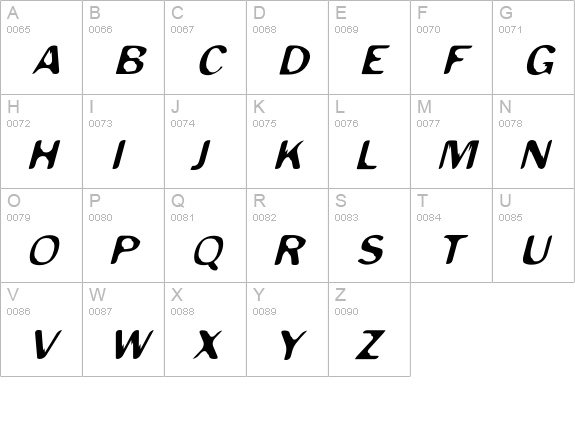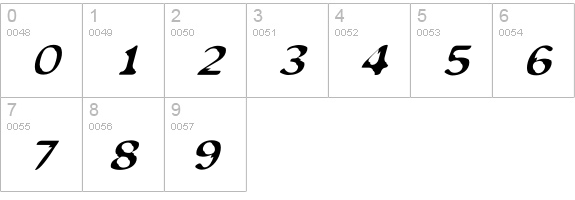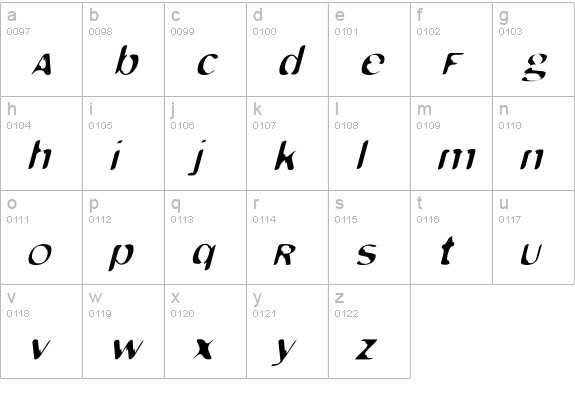
MonkeyCaughtStealing-Oblique is a distinctive, italic variant in the MonkeyCaughtStealing typeface family \xE2\x80\x94 well suited to design and typography projects.
MonkeyCaughtStealing-Oblique font is a unique and playful typeface that adds a touch of whimsy to any design project. With its slanted and quirky characters, this font is perfect for creating eye-catching headlines, posters, or social media graphics. The irregular shapes of the letters give off a fun and mischievous vibe, making it a great choice for projects that need a bit of personality. Best of all, MonkeyCaughtStealing-Oblique font is freely available to download at FontsMarket.com. Whether you're a designer looking to add a fun twist to your work or someone who simply appreciates creative and offbeat fonts, this typeface is sure to delight. Don't miss out on the opportunity to incorporate this charming font into your next project and let your creativity run wild with MonkeyCaughtStealing-Oblique font!